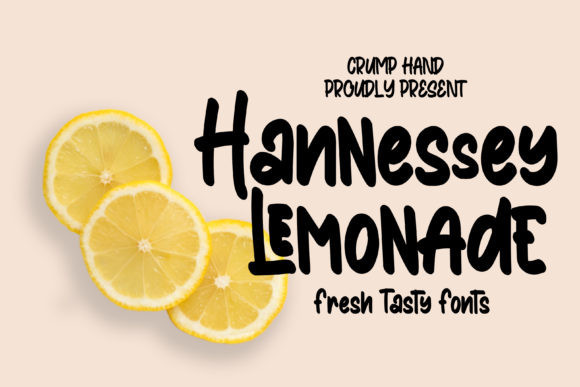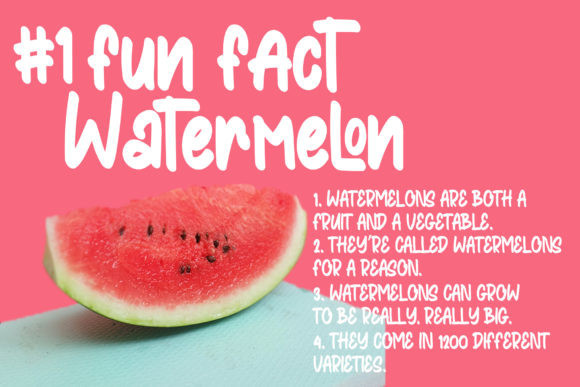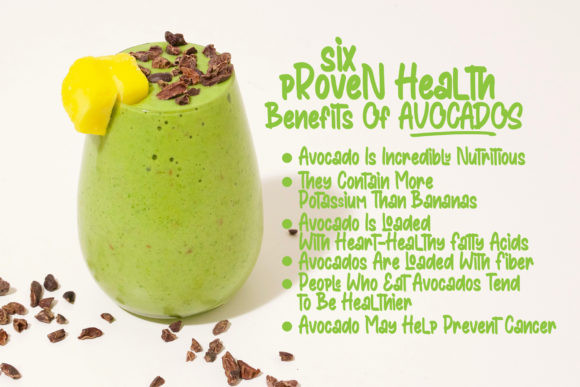
Hannessy Lemonade Display Font
Hannessy Lemonade Display Typeface
Say hello to Hannessy Lemonade Font. This is a bold children font, and fun font that looks great on greeting cards, perfect on mugs and combines seamlessly on just about any hand lettered project that comes your way! It’s designed and shared by stefiejustprince. It’s a fresh and tasty display font with a summery vibe. Use it to a funky feel to any craft! Can used for various purposes. such as the title, logo, quotes, invitations, signage, posters, etc. International support for most Western Languages is included.